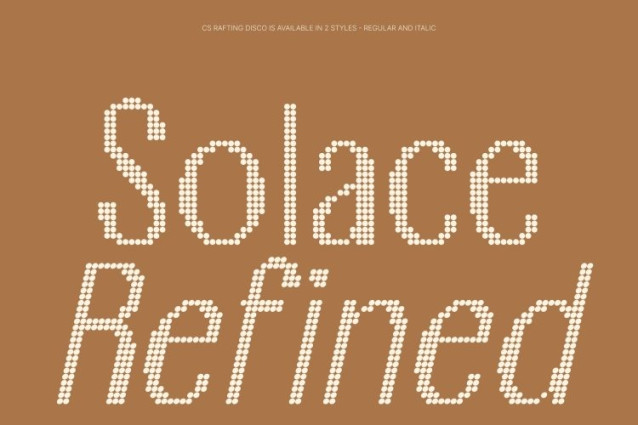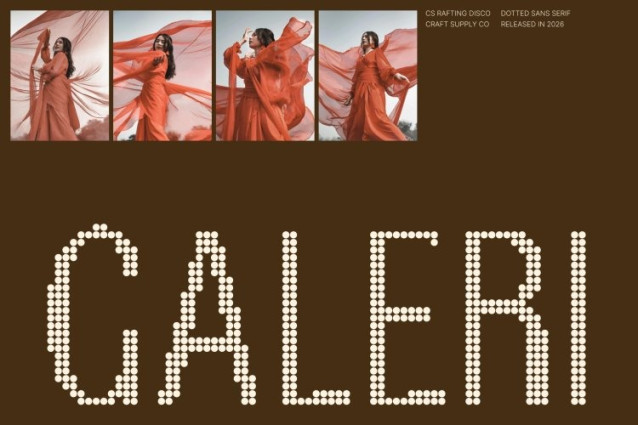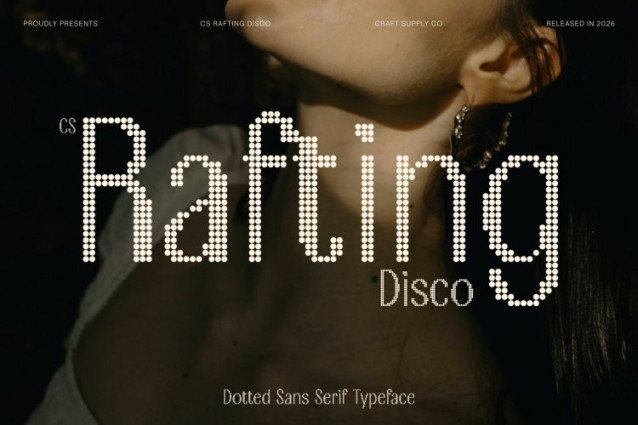
CS Rafting Disco Font
CS Rafting Disco Font – This is a modern sans serif font that combines confident, elongated letterforms with a vibrant disco-inspired dotted texture. Its clean structure and strong proportions maintain a professional, contemporary presence, while the sparkling dotted effect adds movement and visual excitement. This blend transforms a refined modern typeface into a lively display style that feels both powerful and expressive.
Elongated Forms with Luminous Clarity
The vertically extended letterforms create a distinctive rhythm that emphasizes elegance and strength. Enhanced by the dotted disco texture, each character gains a shimmering visual layer that adds depth and personality without sacrificing readability. The result is typography that feels structured, confident, and visually dynamic.
Clean Design with Modern Character
Rooted in modern minimalism, the font’s clean lines and balanced geometry ensure clarity across different sizes and layouts. The disco-inspired texture introduces playful energy while preserving the font’s sleek, contemporary identity creating a unique balance between precision and celebration.
Perfect for Headlines, Branding, and Editorials
This font excels in headlines, branding, editorial layouts, posters, and digital campaigns. Its elongated elegance provides a distinctive visual presence, while the sparkling detail ensures designs feel vibrant, memorable, and full of personality.